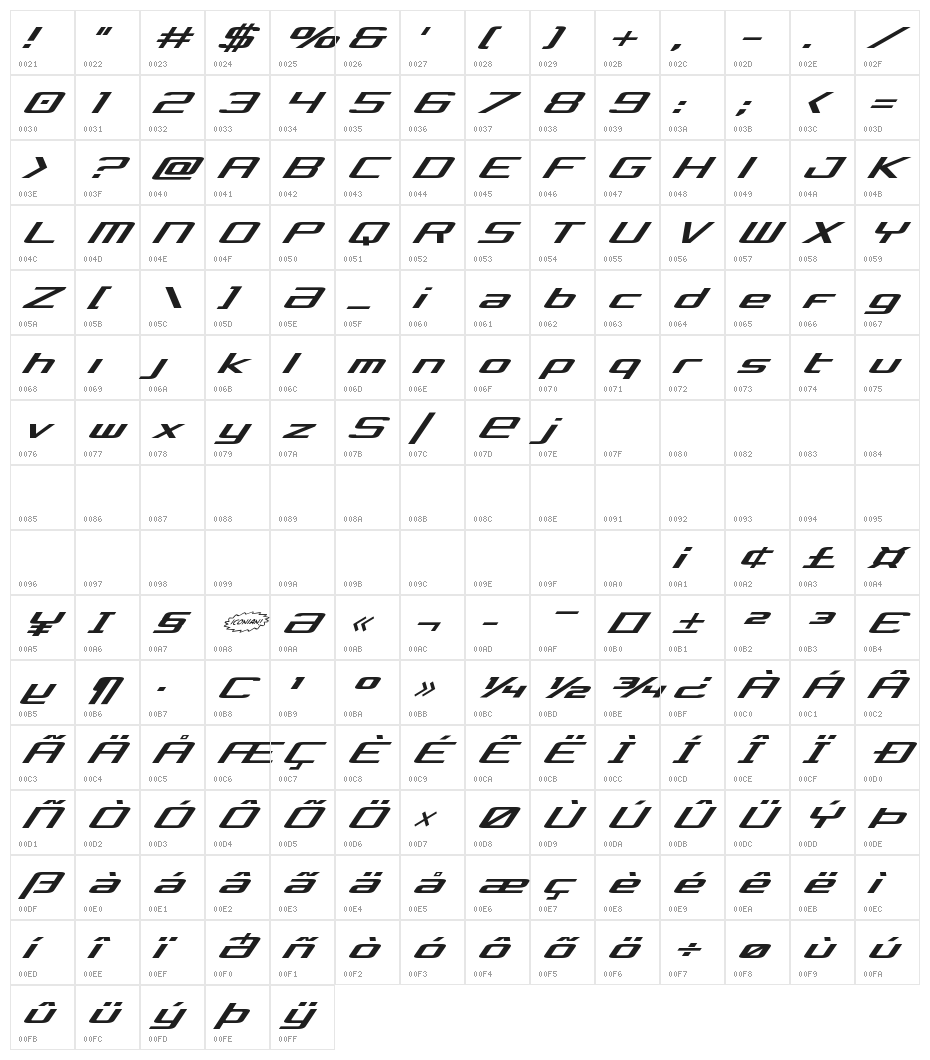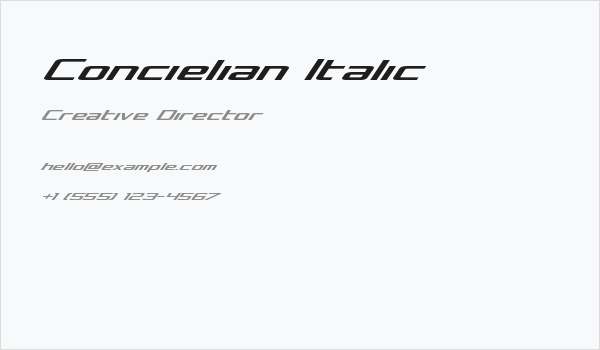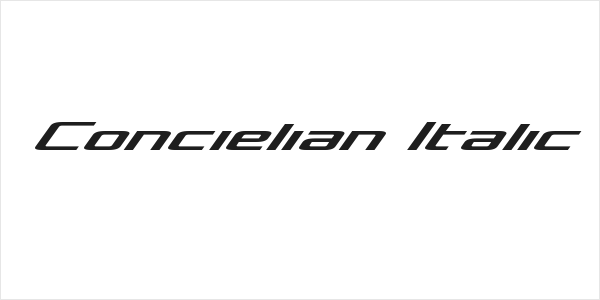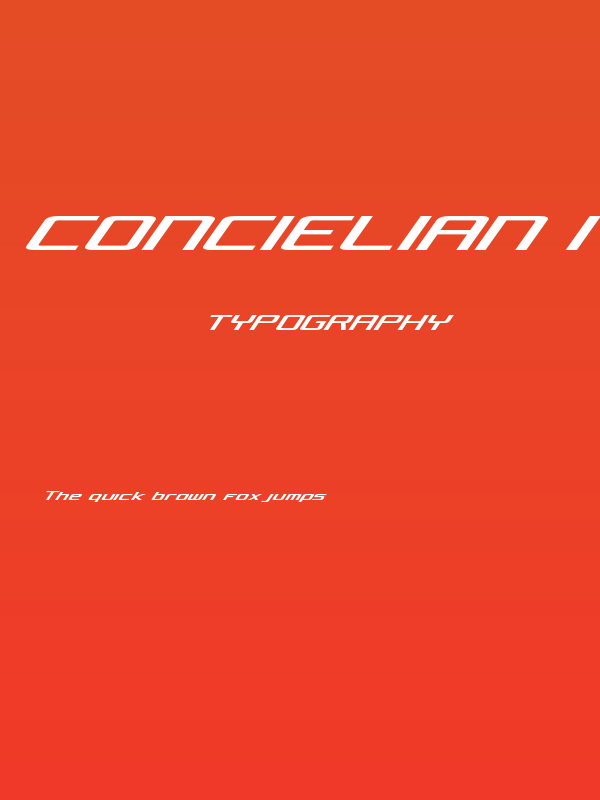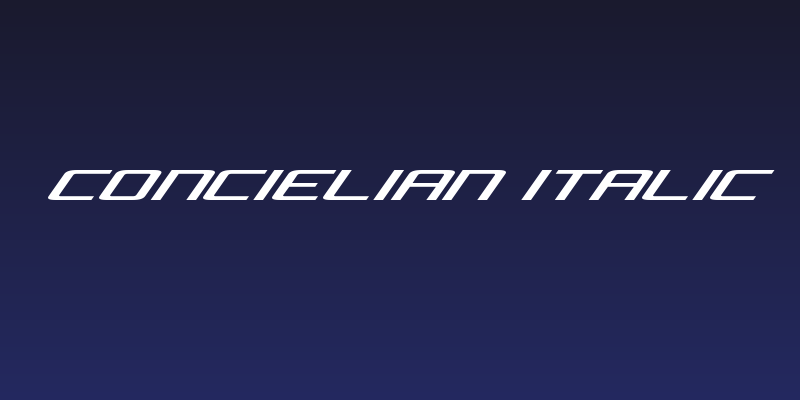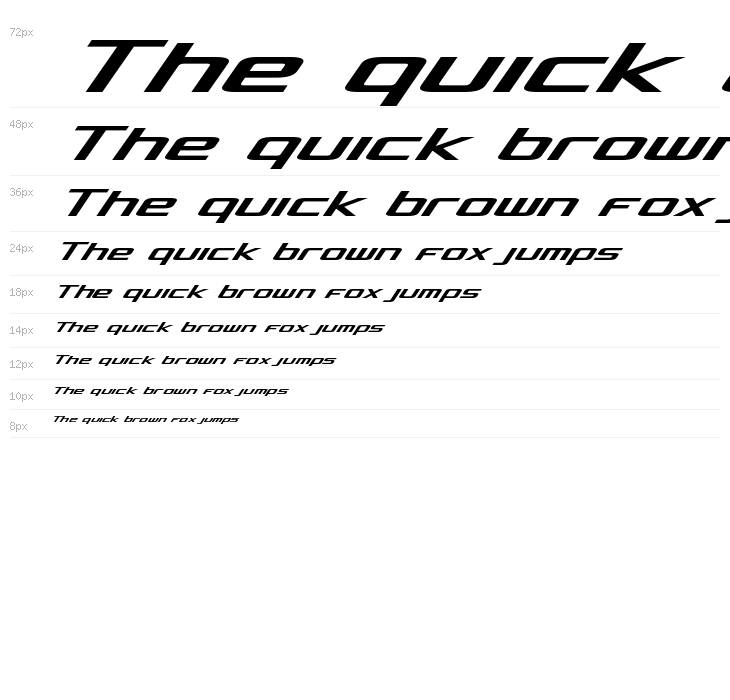
Concielian Italic Font
Concielian Italic Description
This font features a sleek, italicized design with a modern and futuristic aesthetic. The characters are slightly slanted, giving a sense of motion and dynamism. The strokes are uniform in thickness, providing a clean and consistent appearance. The angular cuts and sharp edges contribute to its contemporary look, making it suitable for tech-related themes. The uppercase and lowercase letters maintain a cohesive style, while the numerals and special characters are designed to match the overall aesthetic.